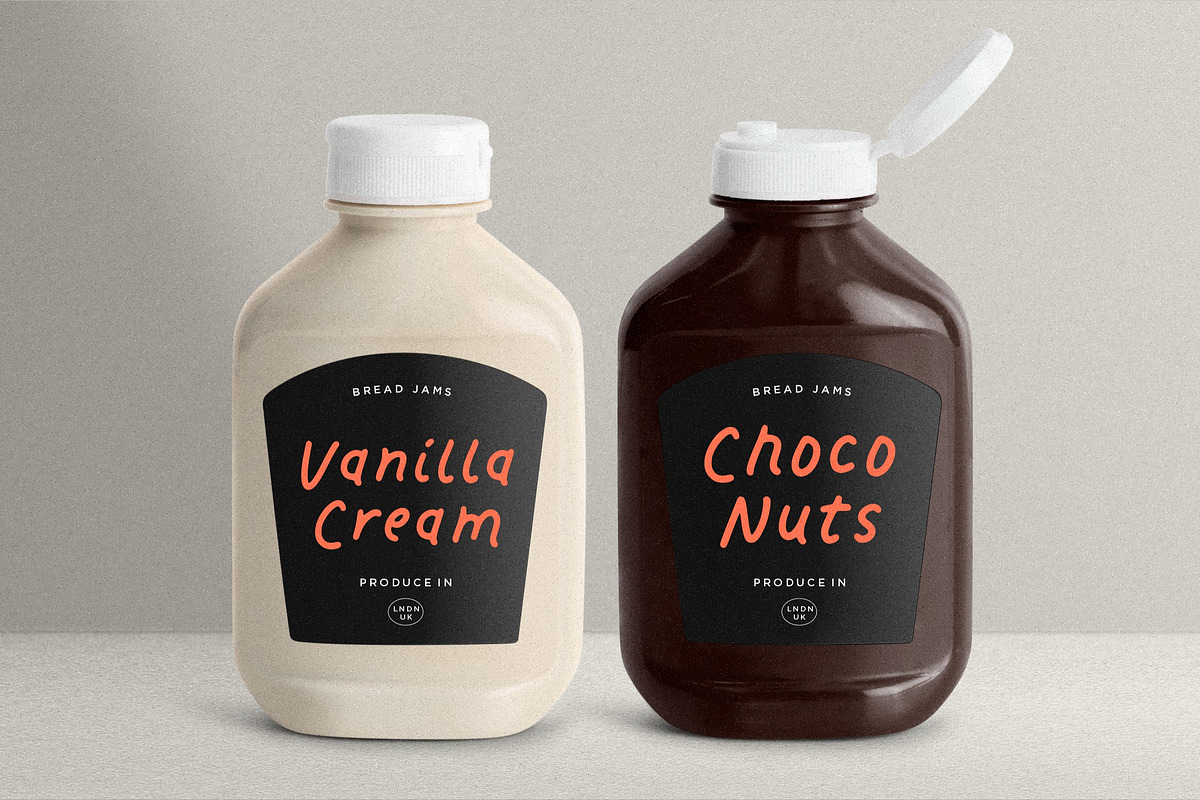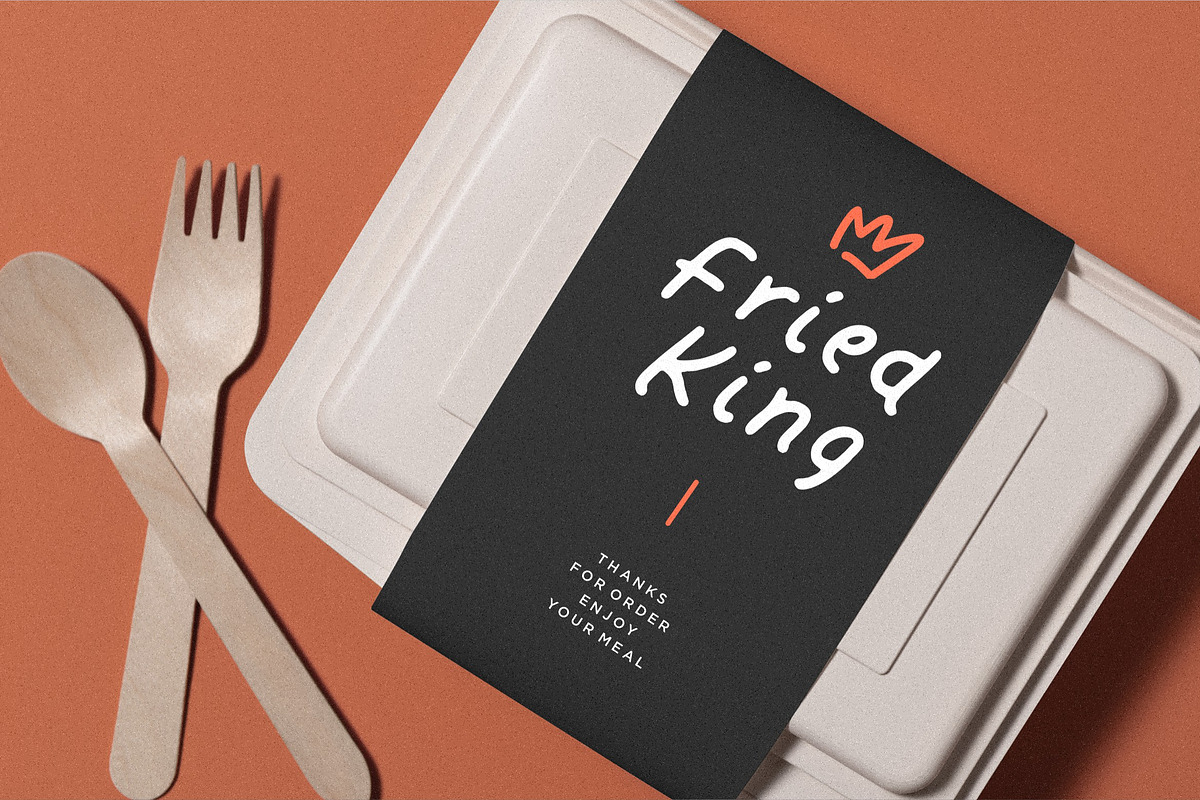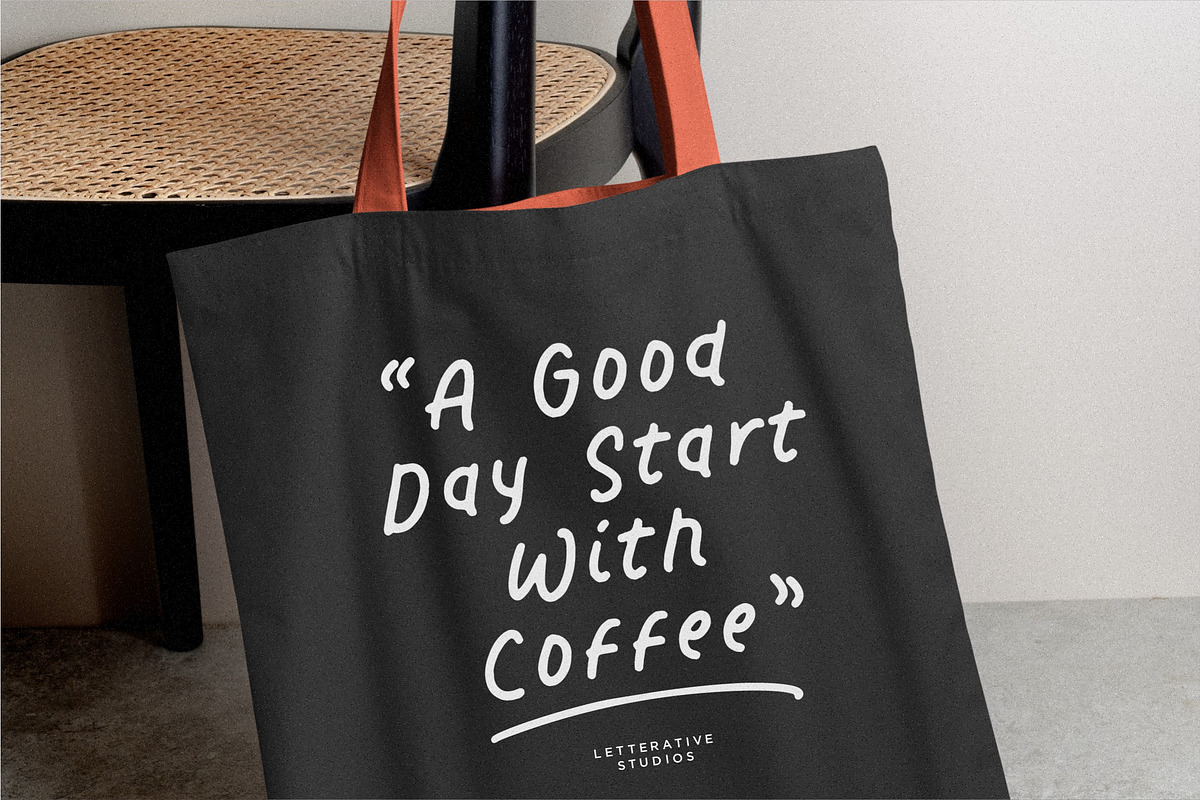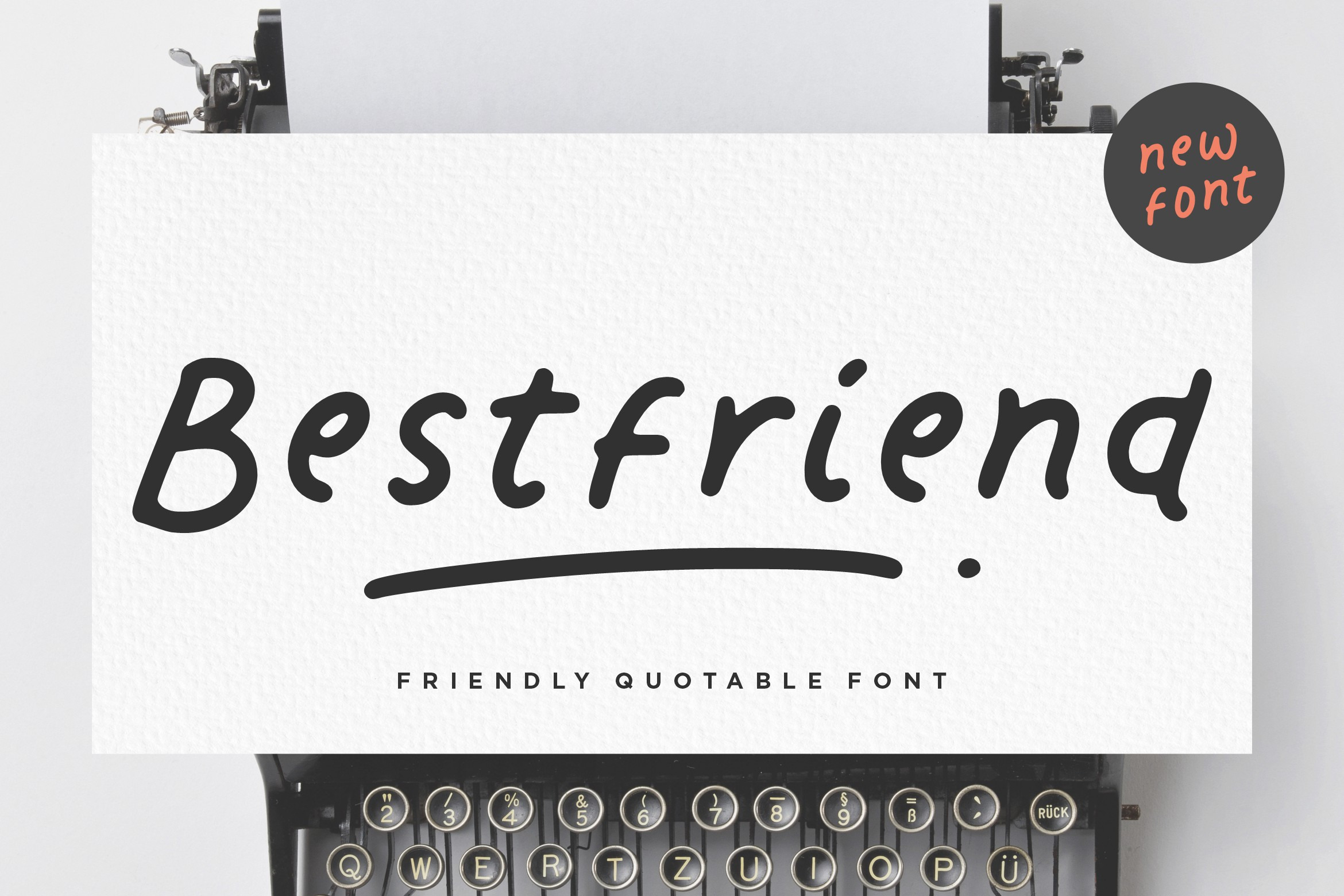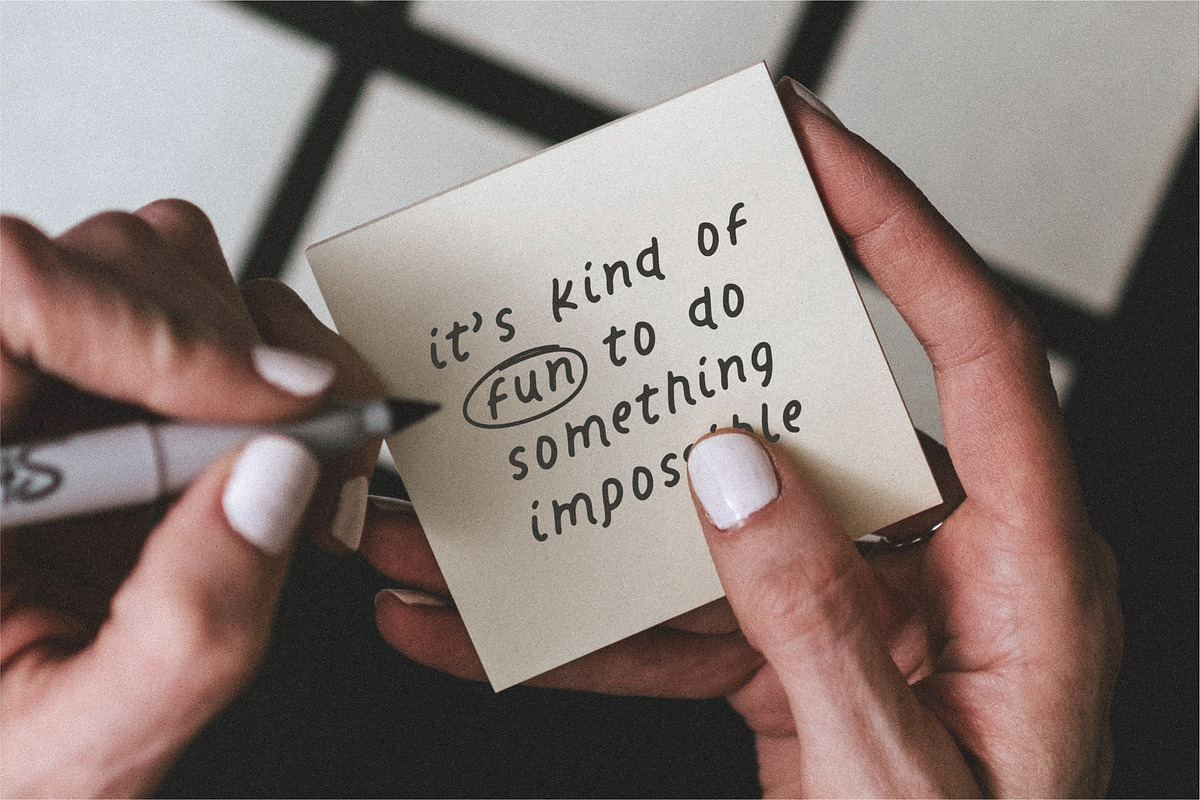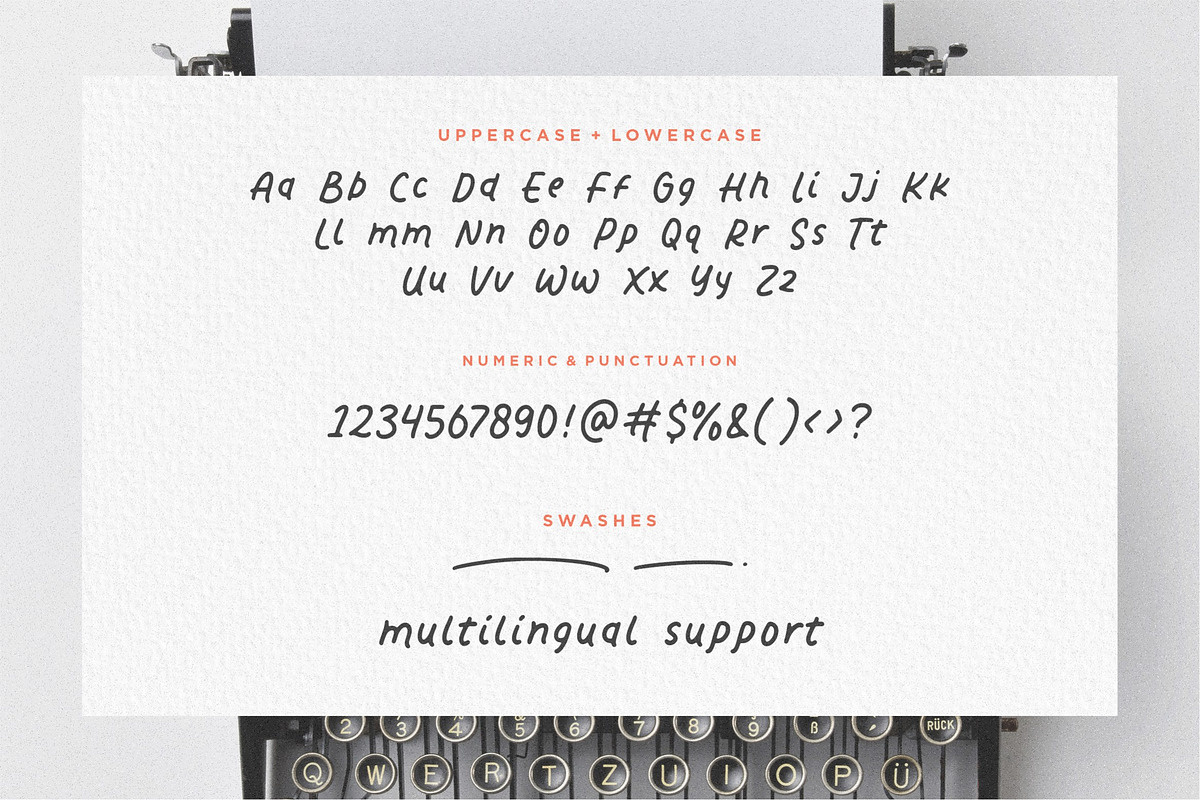
Bestfriend - Friendly Quotable Font
Introducing by Letterative Studio : Bestfriend Font
Bestfriend is a Friendly Quotable Font
Bestfriend is a Friendly Quotable font. Whether you’re using it for crafts, digital design, presentations, or making greeting cards, this font has the potential to become your favorite go-to font, no matter the occasion!